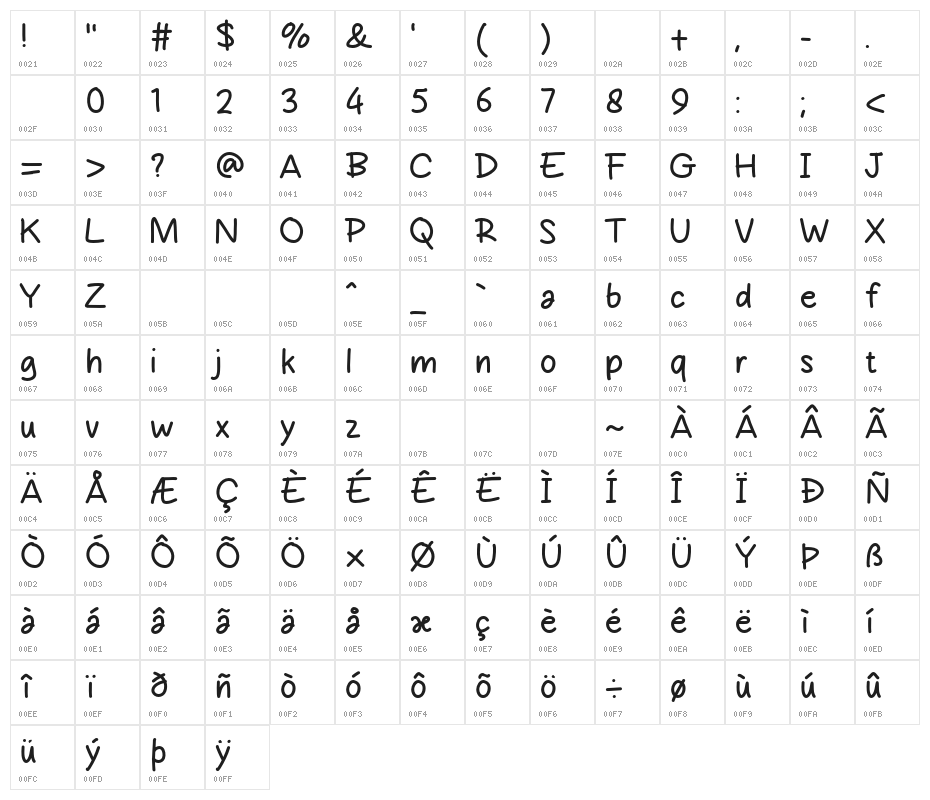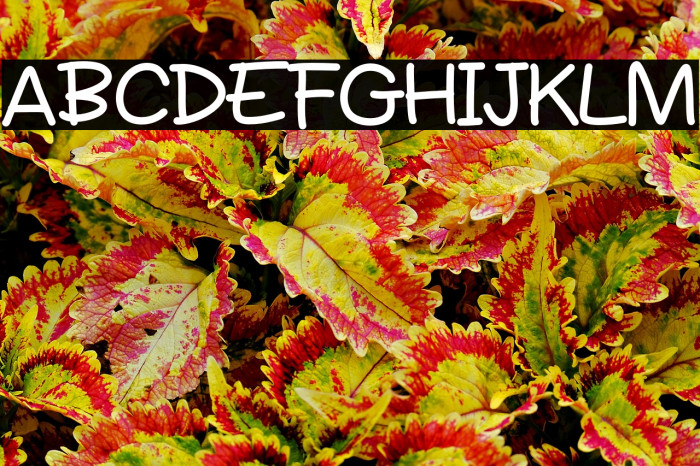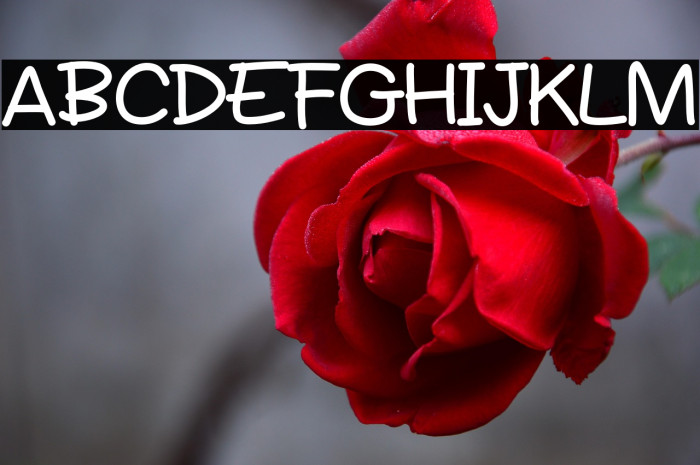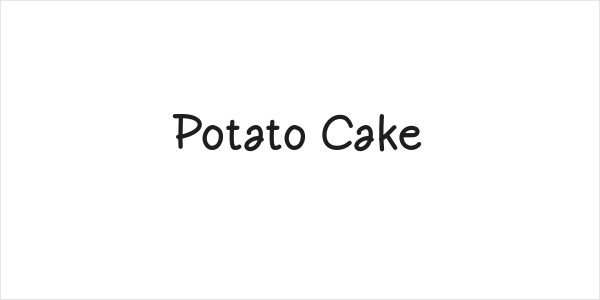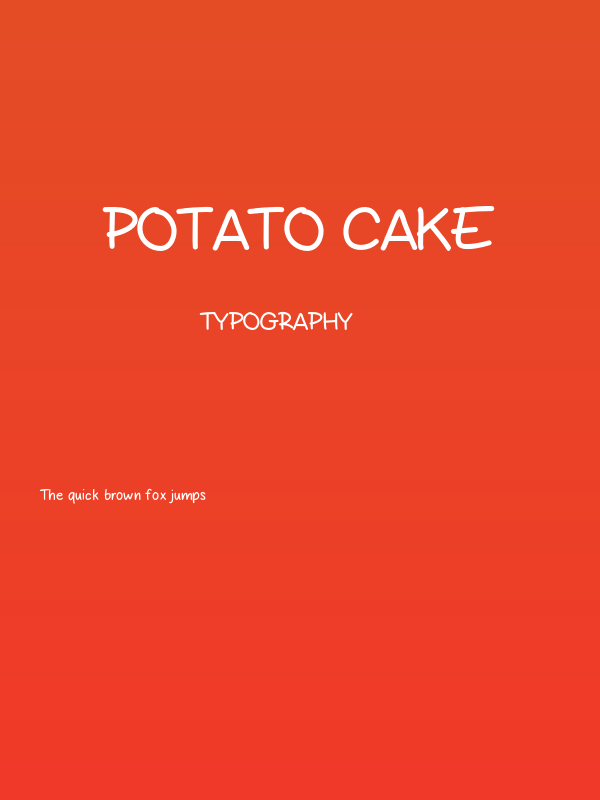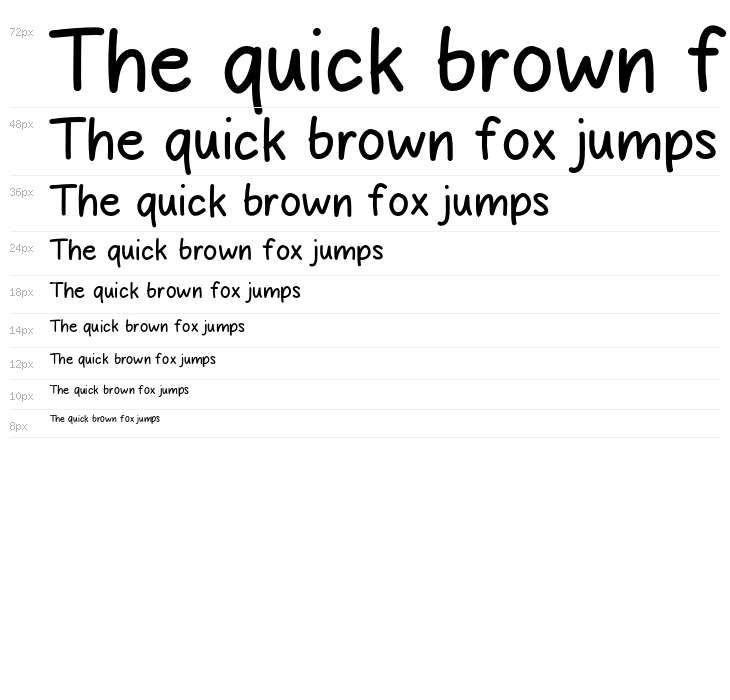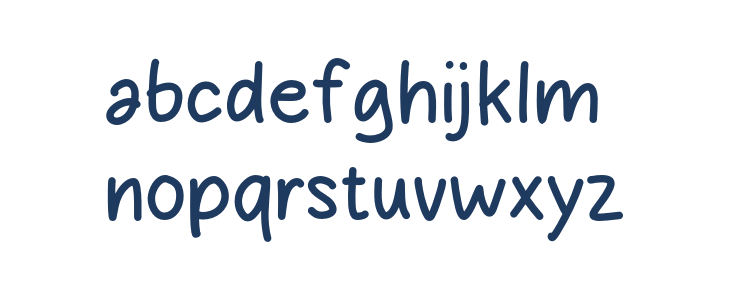
Potato Cake Font
This playful and informal font features a handwritten style with a casual and friendly appearance. The letters are slightly rounded and have a consistent stroke width, giving it a uniform look. The font includes both uppercase and lowercase letters, numbers, and a variety of special characters. Its design is approachable and easy to read, making it suitable for projects that require a personal touch. The characters are well-spaced, ensuring clarity and readability across different sizes.
| Use Case | Headlines, Informal text, Personal projects |
| Proposed Projects | Ideal for greeting cards, children's books, personal blogs, and informal branding. |